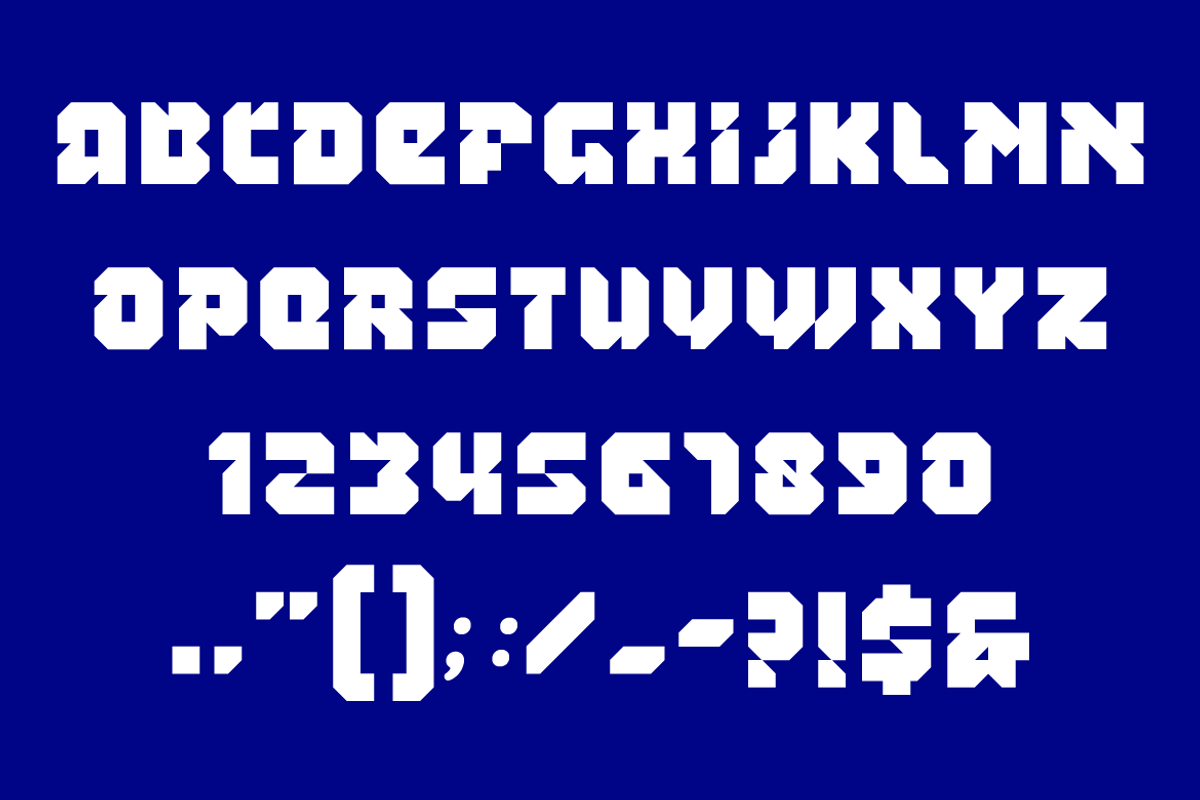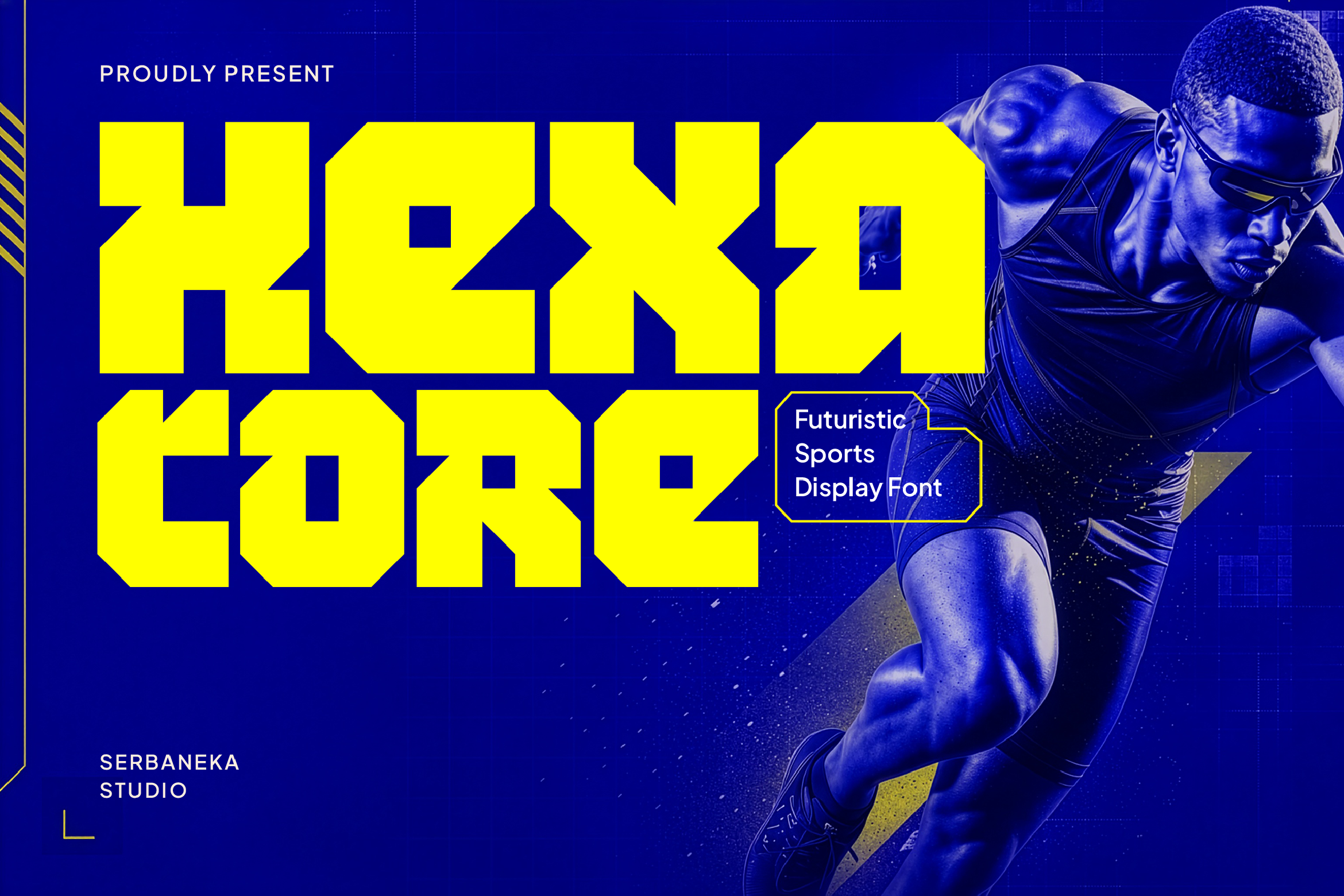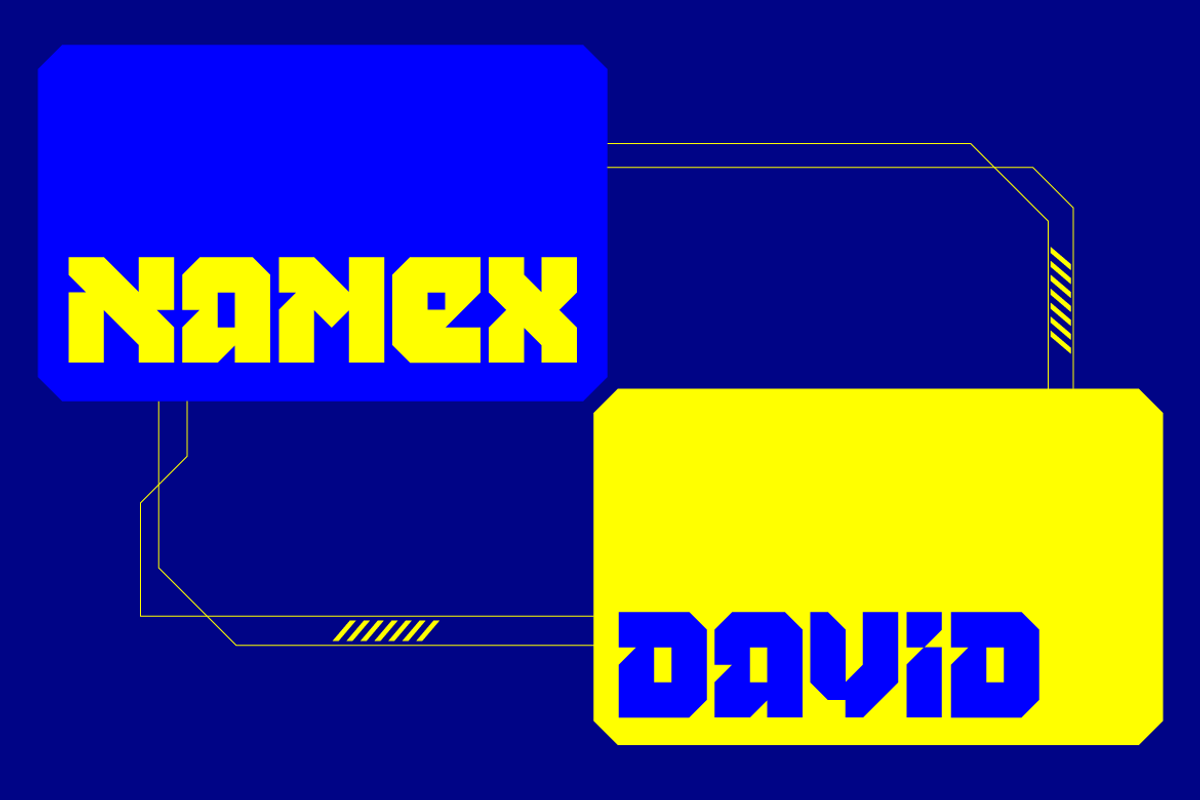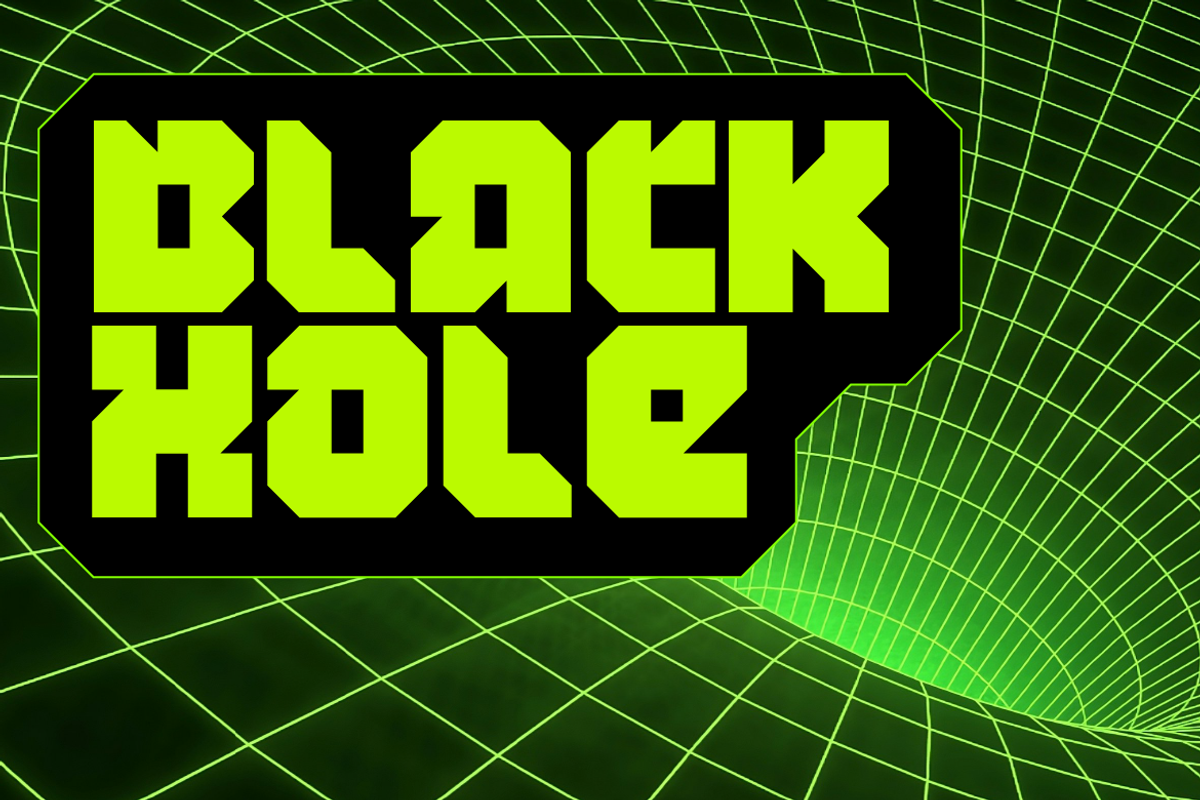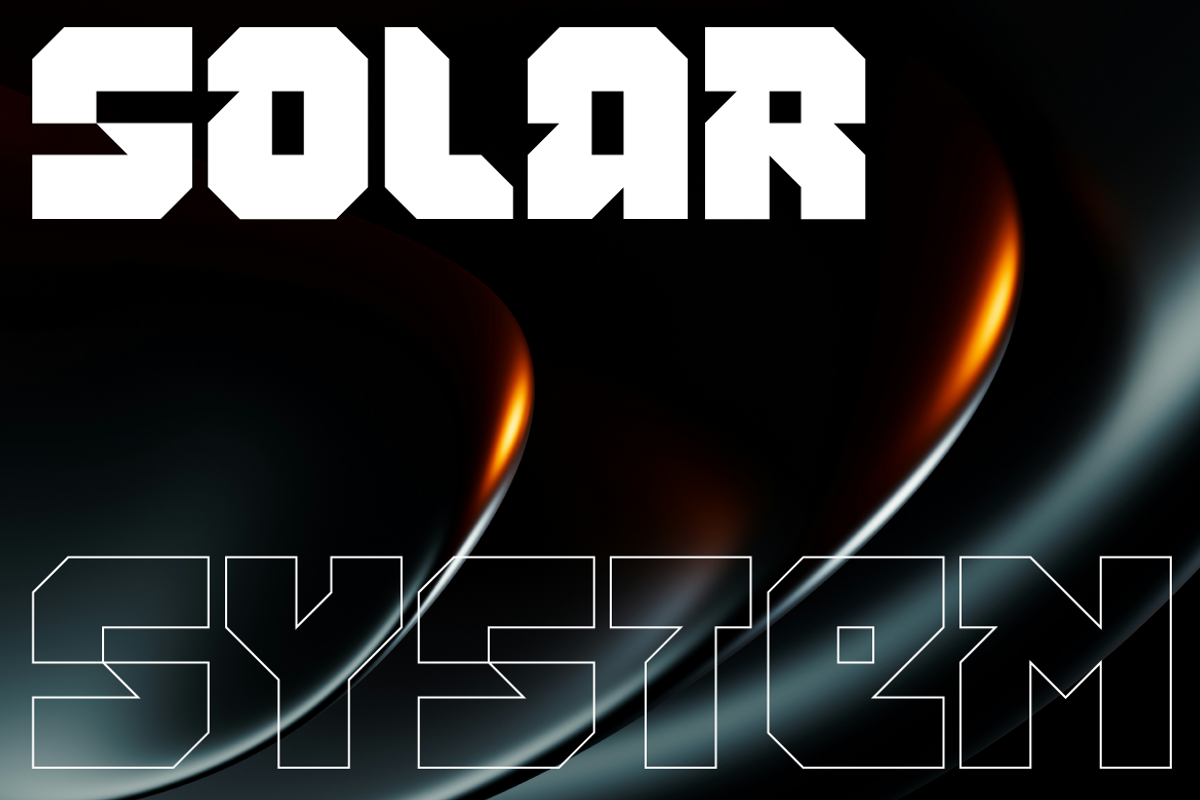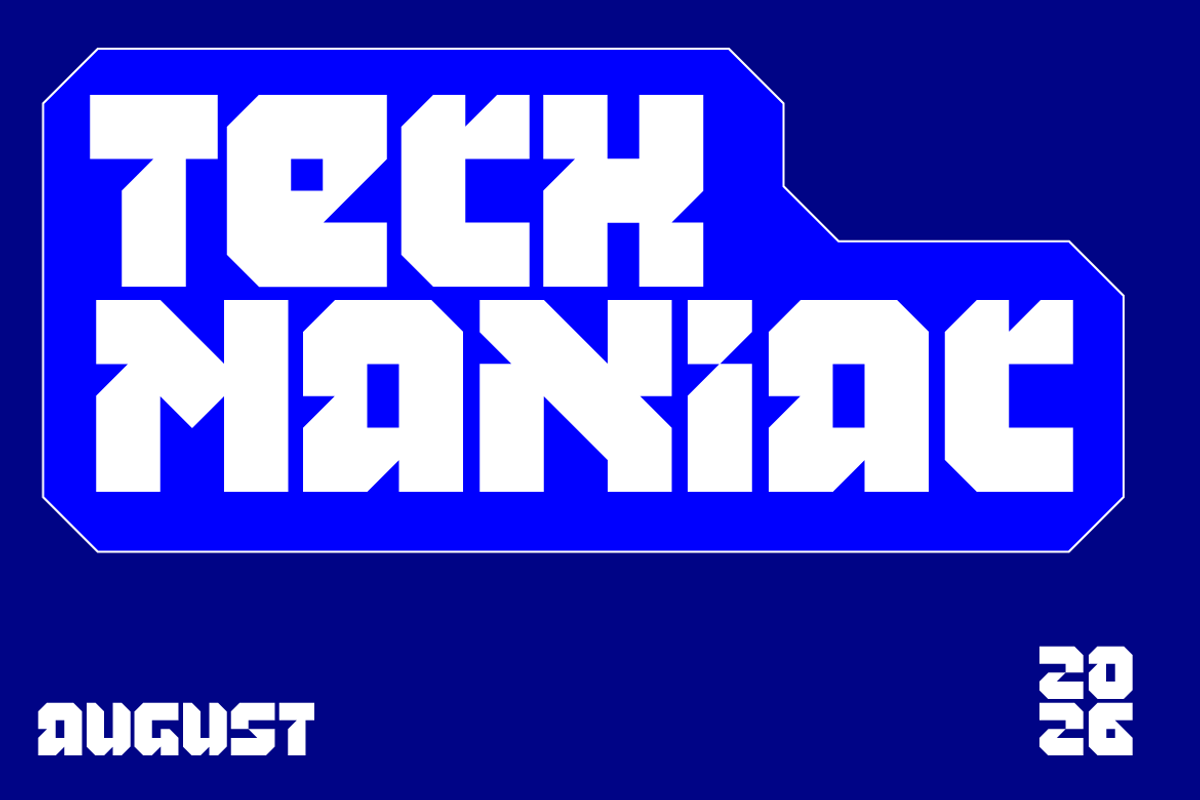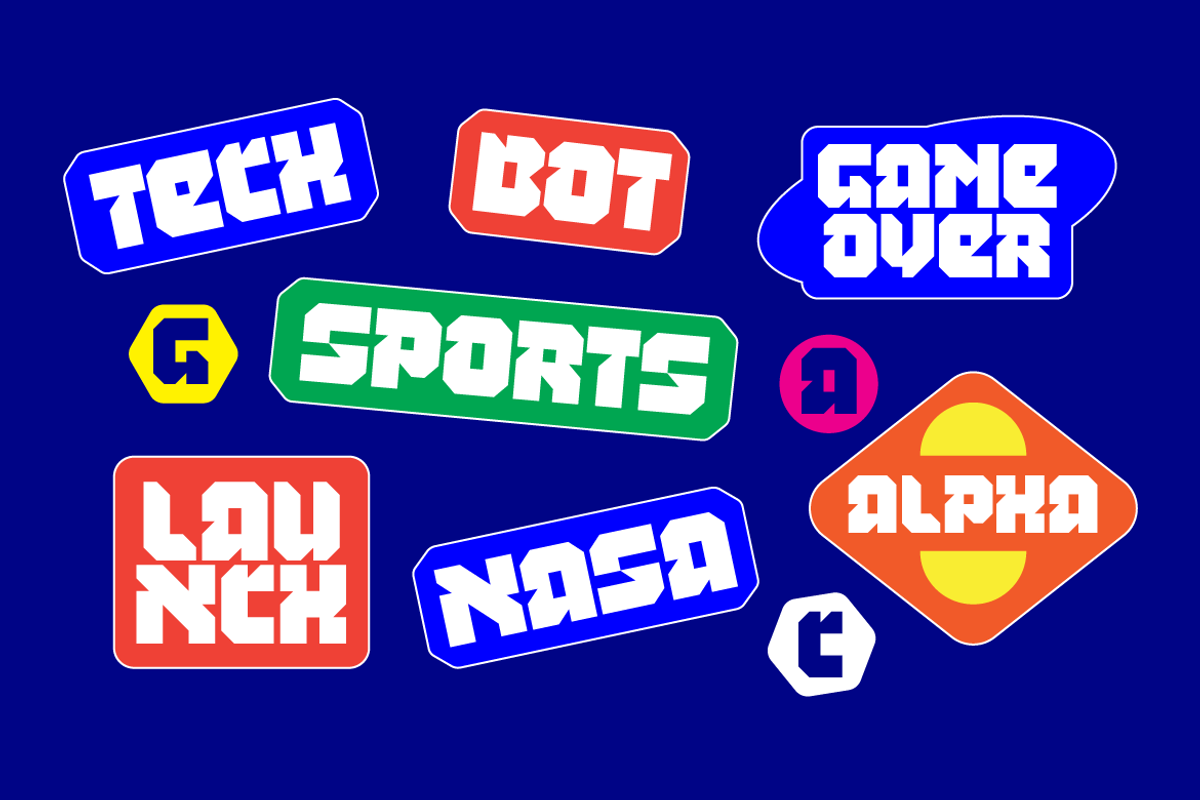
Hexacore Futuristic Display Font
Hexacore is a bold futuristic display font. inspired by competitive sports, esports culture, and modern technology aesthetics. Featuring strong geometric letterforms, sharp angular cuts, and a powerful block-style construction, Hexacore delivers maximum impact for headlines, logos, and branding projects that demand attention.
Designed with a modern cyber-tech personality, Hexacore works perfectly for sports teams, gaming brands, racing events, tournament posters, tech startups, streaming graphics, and futuristic visual identities. Its distinctive shapes create a strong visual presence while maintaining excellent readability across digital and print media.
Whether you're designing an esports logo, creating a gaming poster, building a sports brand identity, or developing futuristic merchandise, Hexacore provides the bold and energetic look needed to stand out from the competition.
Uppercase Characters
Clean Vector Shapes
Perfect for Large Headlines
Perfect For :
Sports Branding
Esports Logos
Gaming Titles
Tournament Posters
Team Sports
Racing Graphics
Tech Branding
YouTube Thumbnails
Streaming Overlays
Event Promotions
Merchandise Design
Modern Packaging
Futuristic Posters